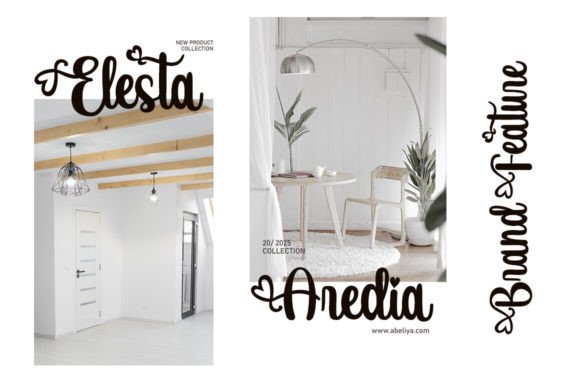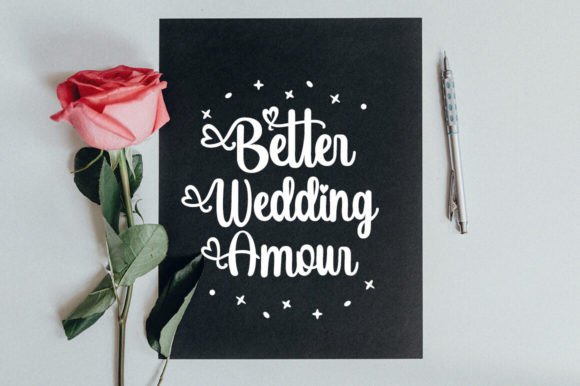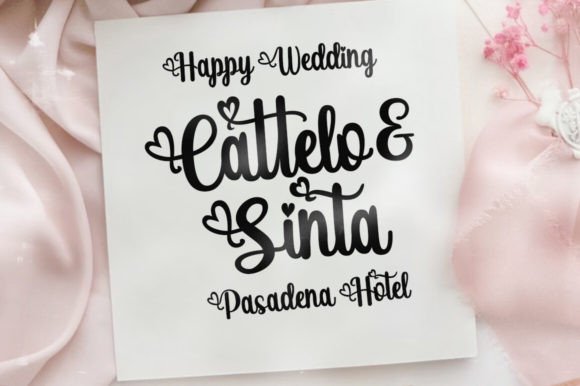
Introduction to Astelia Honey Font
Astelia Honey is an elegant and beautiful script font with a charming character model.
Suitable for creating classy, ​​charming designs in fresh letter shapes The bold character with love in capital letters can give an elegant and stylish effect when you create your design doodles, you can easily use it for classy-looking design projects right now.
Astelia Honey Font offers exceptional quality and versatility, making it a valuable addition to your design toolkit. Whether you’re creating for personal projects or commercial use, Astelia Honey Font delivers professional results.